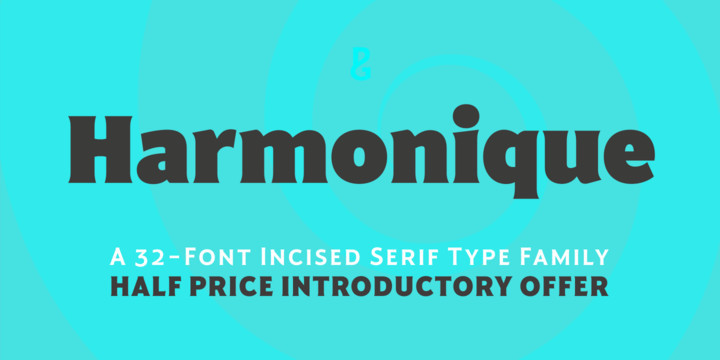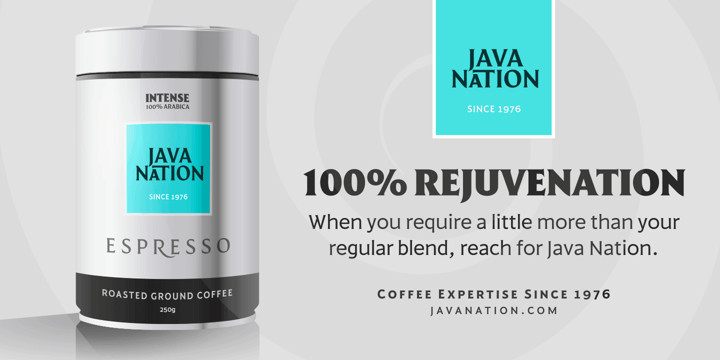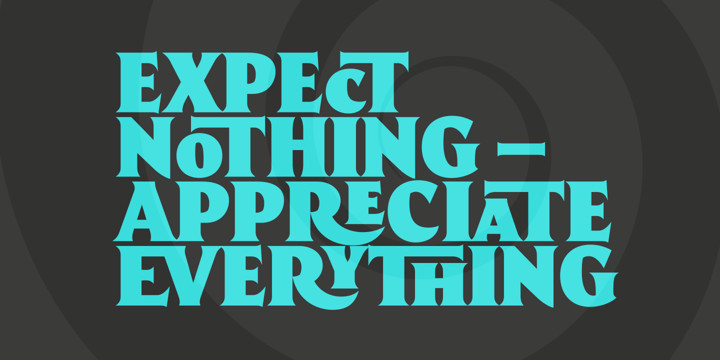
Harmonique Font
Harmonique is an incised serif typeface designed for both text and display purposes. It’s a type family of two styles that work in harmony together to add distinction and personality to your own typographic compositions. Harmonique’s low contrast forms have the appeal of a humanist sans serif typeface. Its subtly flared terminals evoke the craft and skill of a signwriter’s steady hand, creating an authentic and pleasing aesthetic. Harmonique Display is more calligraphic in its structure – as if drawn by a wide-nibbed pen. This style is accentuated by aggressively barbed serifs and chiselled arcs in its counters and bowls. These strong characteristics help to define a flamboyant, confident style that will provide impact and flair to your headlines, titles and identity designs.
Practical features include 48 ligatures that will enhance titling possibilities with their all-capital pairings – these are accesssed by turning on Discretionary Ligatures and then selecting either Sylistic Set 1 or 2. There are also a number of alternate caps that will subtly enhance your titles and headlines – access these via Stylistc Sets 3 and 4. Small Caps are included too (along with their matching diacritics) – adding another layer of versatility to this typeface. Proportional Lining figures are available as an option if you prefer them to the default Old Style figures.
There are 32 fonts altogether, with 8 weights in roman and italic from Light to Ultra in both text (low contrast) and display (high contrast) styles. Harmonique has an extensive character set (650+ glyphs) that covers every Latin European language.